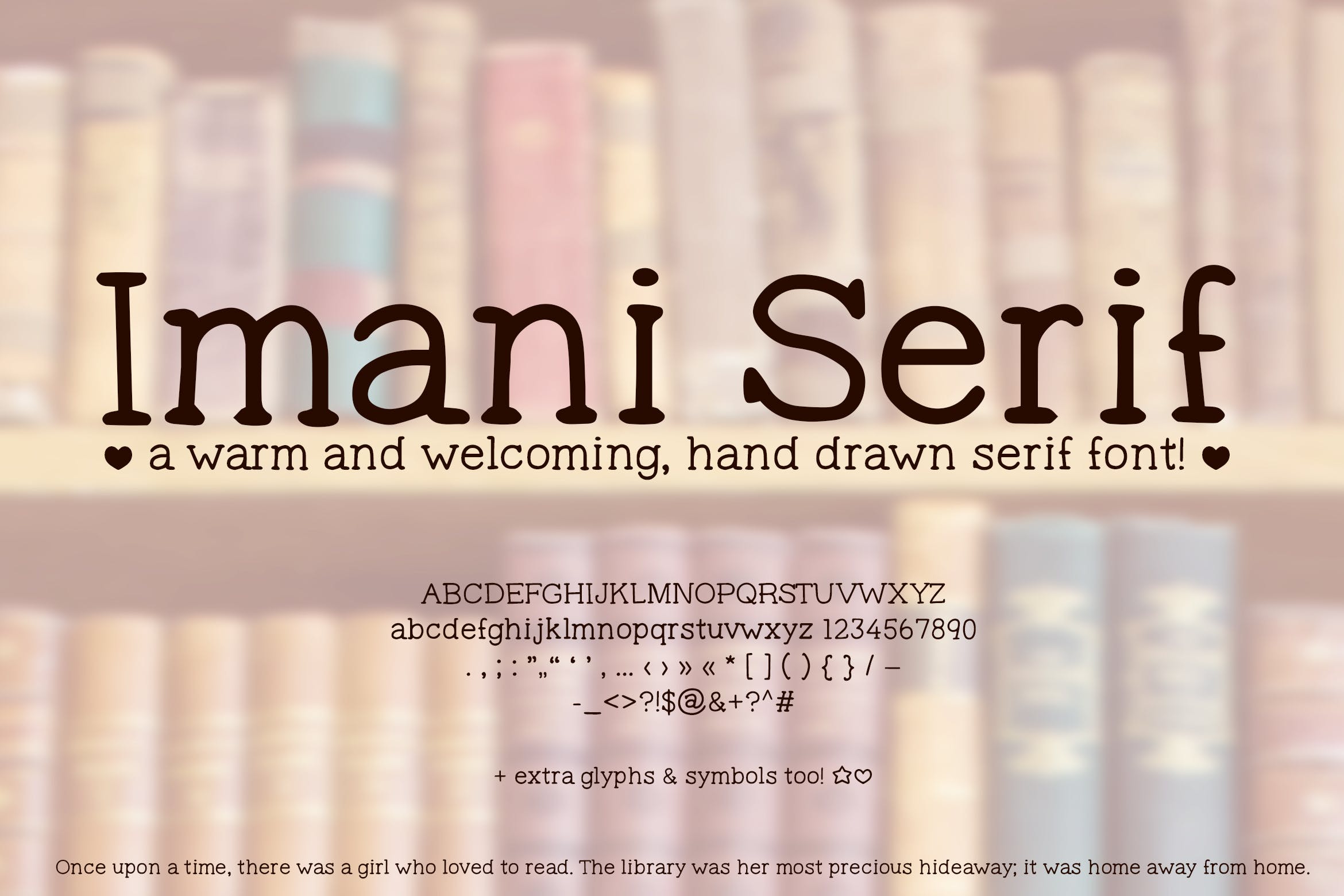
Introducing Imani Serif, a cute handwritten serif font.
If you’re looking for cute fonts, aesthetic fonts, or just a handwriting font with a touch of academia, you might enjoy this one. It feels a little formal, but definitely has the organic vibe of a notebook or well loved journal entry. It’s got some extra symbols in there, like hearts and stars, as well as a number of extended Latin characters and accents.
Every letter was lovingly drawn by me. This cute font is dedicated to my favorite book store. It is truly my favorite place to relax and lose myself. Books are wonderful, aren’t they?